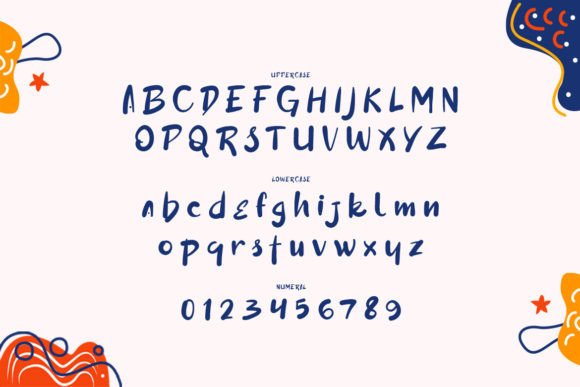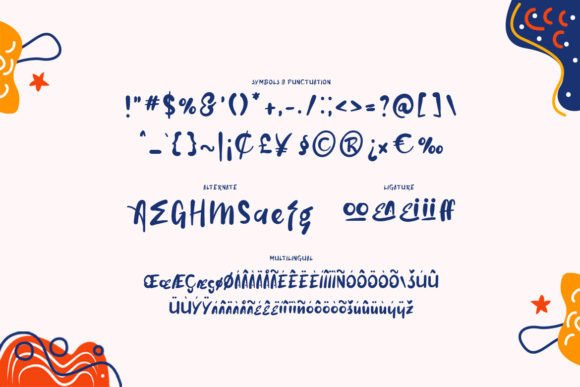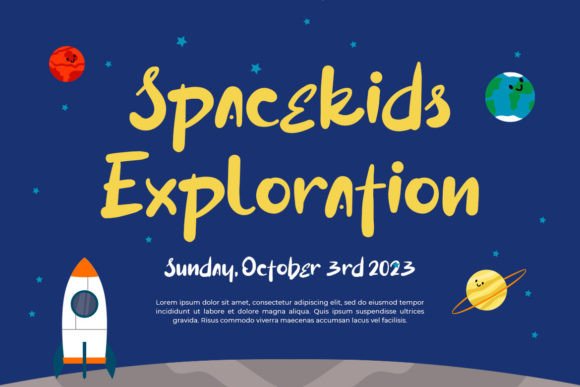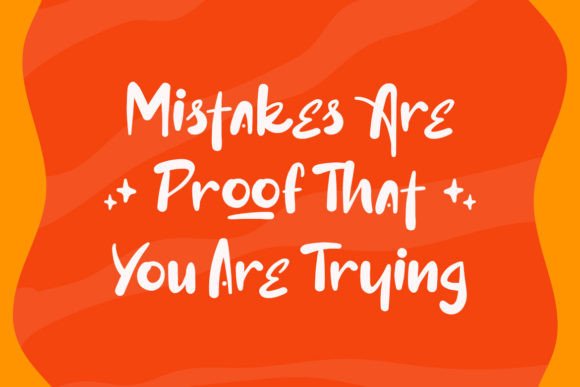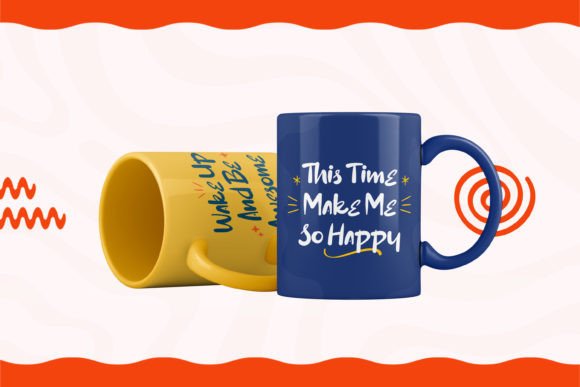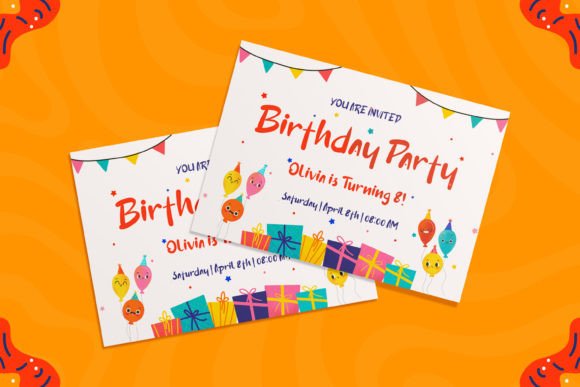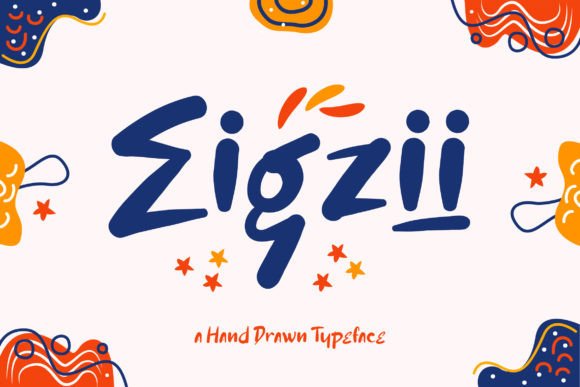
Introducing Eigzii Font: The Ultimate Fancy Handwritten Display Font
Are you tired of using the same old fonts in your designs? Do you want to add a touch of elegance and sophistication to your projects? Look no further than Eigzii Font, a beautiful handwritten display font that is sure to become your new favorite. In this article, we’ll take a closer look at Eigzii Font, its features, and how you can use it to take your designs to the next level.
What is Eigzii Font?
Eigzii Font is a carefully crafted handwritten display font that is designed to make a statement. With its unique and elegant lettering style, Eigzii Font is perfect for adding a touch of sophistication to any design project. Whether you’re working on a logo, brochure, or website, Eigzii Font is sure to impress.
Key Features of Eigzii Font
So, what makes Eigzii Font so special? Here are just a few of its key features:
- Fancy Handwritten Style: Eigzii Font features a beautiful handwritten style that is both elegant and sophisticated.
- Display Font: Eigzii Font is designed specifically for display purposes, making it perfect for headlines, titles, and other prominent text elements.
- Highly Versatile: Eigzii Font can be used in a variety of contexts, from busy backgrounds to standalone headlines.
- Easily Readable: Despite its ornate style, Eigzii Font is surprisingly easy to read, making it perfect for use in a variety of design projects.
How to Use Eigzii Font in Your Designs
Now that we’ve covered the basics of Eigzii Font, let’s take a look at how you can use it in your designs. Here are a few ideas to get you started:
Use Eigzii Font as a Headline
Eigzii Font is perfect for use as a headline or title font. Its bold and elegant style makes it perfect for grabbing attention and adding a touch of sophistication to your designs.
Pair Eigzii Font with Other Fonts
One of the best things about Eigzii Font is its versatility. It can be paired with a variety of other fonts to create a unique and visually appealing design. Try pairing Eigzii Font with a clean sans-serif font for a bold and modern look.
Use Eigzii Font on Busy Backgrounds
Eigzii Font is designed to stand out, even on busy backgrounds. Try using it on a background with a lot of texture or pattern for a bold and eye-catching design.
Why Designers and Crafters Love Eigzii Font
So, why do designers and crafters love Eigzii Font? Here are just a few reasons:
- Unique Style: Eigzii Font features a unique and elegant style that sets it apart from other fonts.
- Highly Versatile: Eigzii Font can be used in a variety of contexts, making it a great addition to any designer’s font library.
- Easily Customizable: Eigzii Font is easily customizable, allowing designers to tailor it to their specific needs.
In conclusion, Eigzii Font is a beautiful and versatile handwritten display font that is sure to become a favorite among designers and crafters. With its unique and elegant style, Eigzii Font is perfect for adding a touch of sophistication to any design project. Whether you’re working on a logo, brochure, or website, Eigzii Font is sure to impress. So why wait? Download Eigzii Font today and take your designs to the next level!